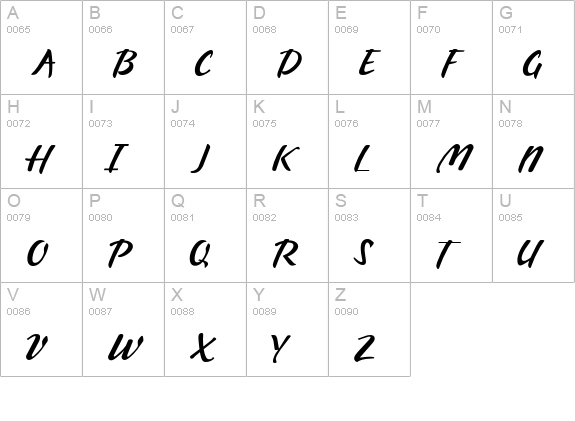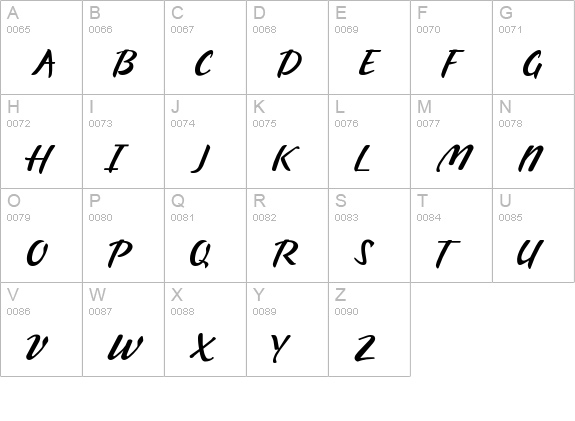
CK Thick Brush Font Details
Introducing CK Thick Brush Font, a versatile and dynamic typeface that exudes creativity and energy. This bold font features thick brush strokes that add a modern and artistic flair to any design project. Perfect for headlines, posters, logos, and more, CK Thick Brush Font is sure to make a bold statement. Best of all, this fantastic font is available for free download at FontsMarket.com. Don't miss out on the opportunity to add this unique and eye-catching font to your collection. Download CK Thick Brush Font today and let your creativity shine!